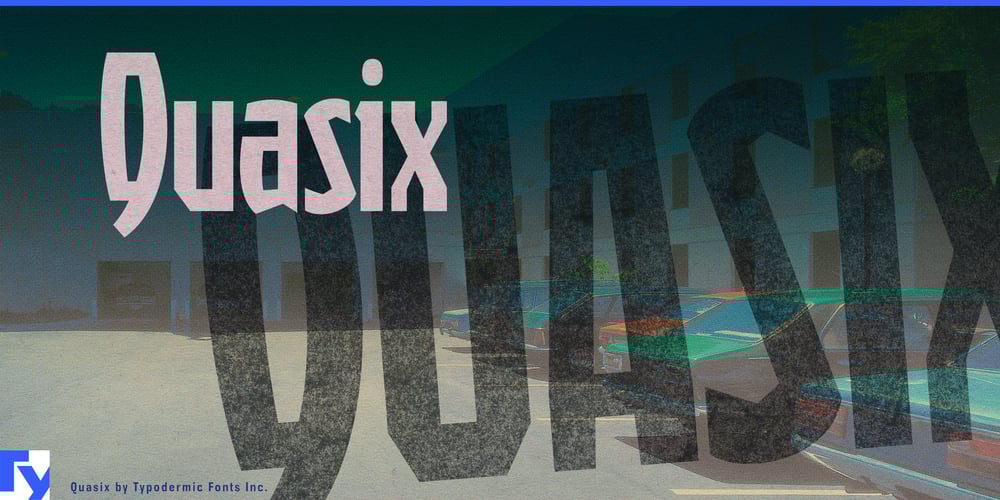
Quasix Font Family was designed by Ray Larabie and published by Typodermic. Quasix contains 1 styles and family package options. In the realm of typography, Quasix stands as a delightful paradox—a compact industrial headline design that thumbs its nose at convention. This isn’t your run-of-the-mill font; it’s a visual enigma that challenges perceptions and ignites creativity.Each character in Quasix is a puzzle piece in a larger, beautifully illogical whole. Its quirky design may initially bewilder, but that’s precisely its charm. This typeface doesn’t just break the rules—it rewrites them with gleeful abandon. Quasix excels at conveying complex engineering concepts without resorting to clichéd techno fonts or tired gear motifs. It’s the perfect choice for designers who want to infuse their work with a sense of mechanical intrigue, whether the project leans retro, modern, or ventures into futuristic territory.From eye-catching posters to unconventional logos, Quasix thrives in the spotlight. Its versatility allows it to adapt to various themes, always bringing its unique flair to the forefront. This typeface doesn’t just communicate—it provokes thought and sparks conversations. Quasix speaks volumes in a multitude of European languages, fluently covering most Latin-based writing systems. From Afrikaans to Zulu, and countless tongues in between, this typeface ensures your message resonates across borders—albeit with its signature quirkiness intact.Embrace the unconventional. Let Quasix be the catalyst that transforms your designs from ordinary to extraordinary. In a world of predictable typography, be the designer who dares to deploy the delightfully nonsensical.